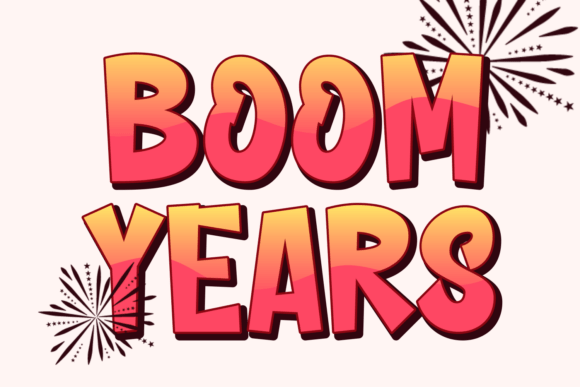
Introduction to Boom Years Font
Welcoming Boom Years Display Font – a typographic sensation seamlessly blending the gritty allure of Graffiti Fonts with the idiosyncratic appeal of Cartoon Fonts.
A stunning representation of urban calligraphy, this distinctive font is ideal for those aiming to infuse vigour into their brand identity or introduce a trace of urban flair into comic book script Born from the creative brains at 7ntypes, it boldly dares to leave an impression.
Key Features of Boom Years Font
Why Choose Boom Years Font?
Boom Years Font offers exceptional quality and versatility, making it a valuable addition to your design toolkit. Whether you’re creating for personal projects or commercial use, Boom Years Font delivers professional results.